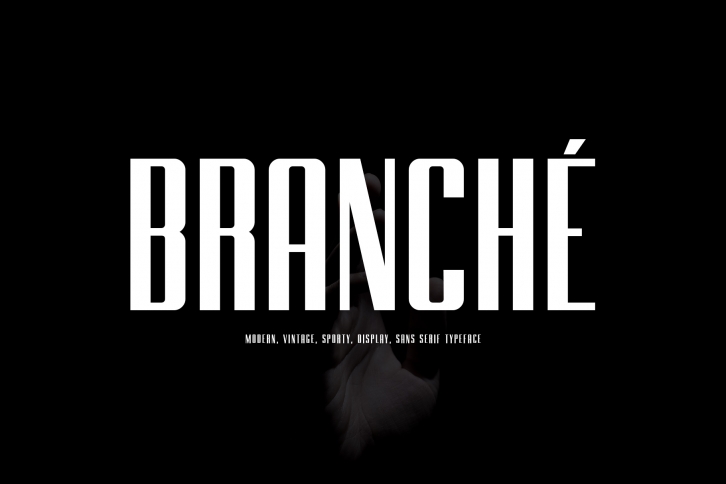
BRANCHE is a great font that was designed by TypoBureau Studio. Imagine the amount of combinations you can create using this font! The archive is 9.32 MB and it was released on August 6, 2019. BRANCHE looks beautiful on wedding invitations, greeting cards, logos, posters, labels, t-shirt designs, logos, business cards and is perfect for use in ink or watercolor works, fashion, magazines, packaging and food menus, children's books and more!